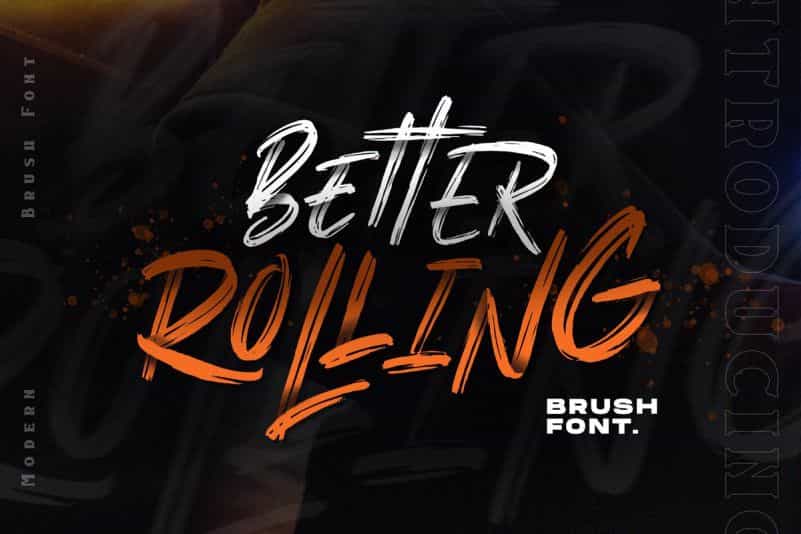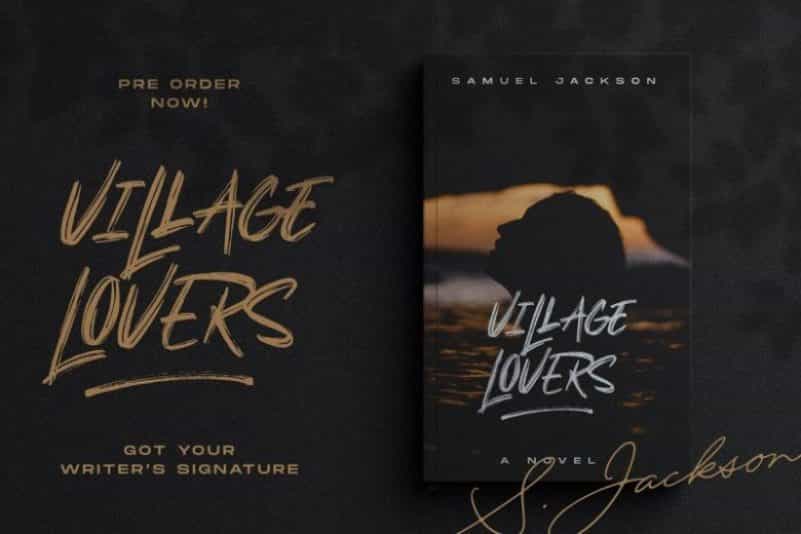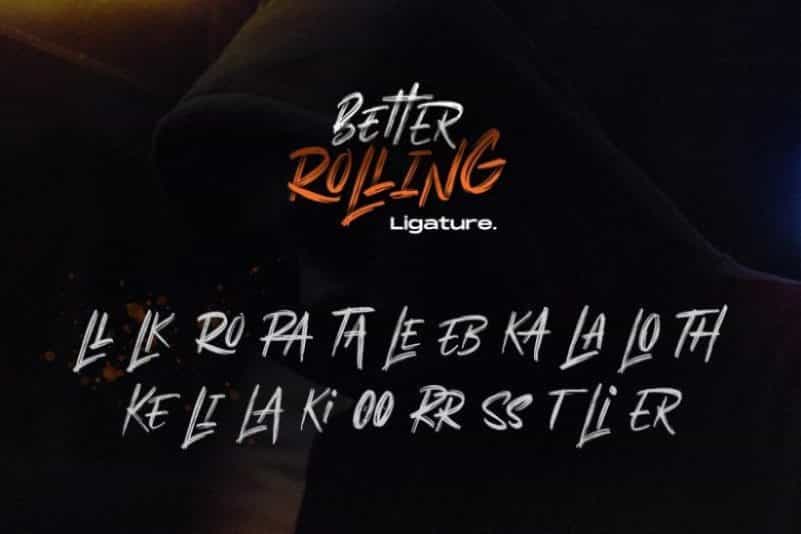
It is a hand brushed font type, with dry brush flaws and a bouncy baseline Better Rolling has a perfect brush font match. It is created and posted by Mas Anis. Better Rolling Brush is the modern hand brush font, a supercharged, street-wise brush font bursting with energy. Additional emphasis on fast movements and fine lines. Every character was painted with a brush to make it look like the texture of the real one.